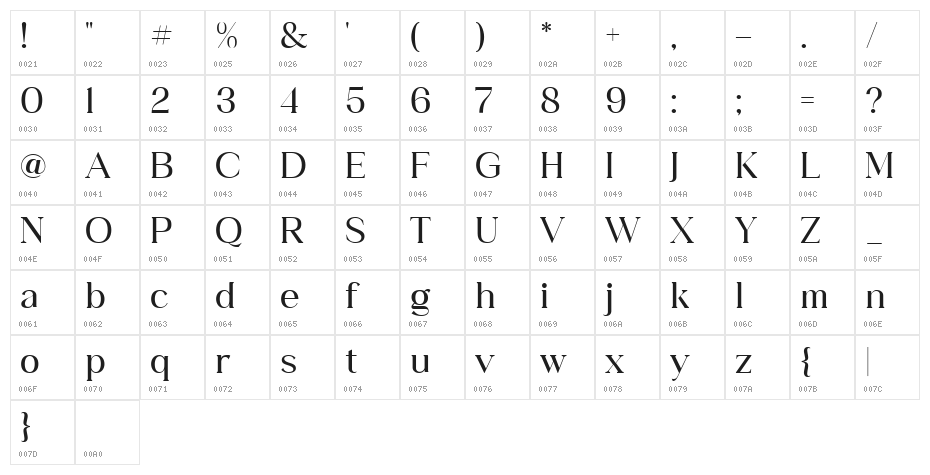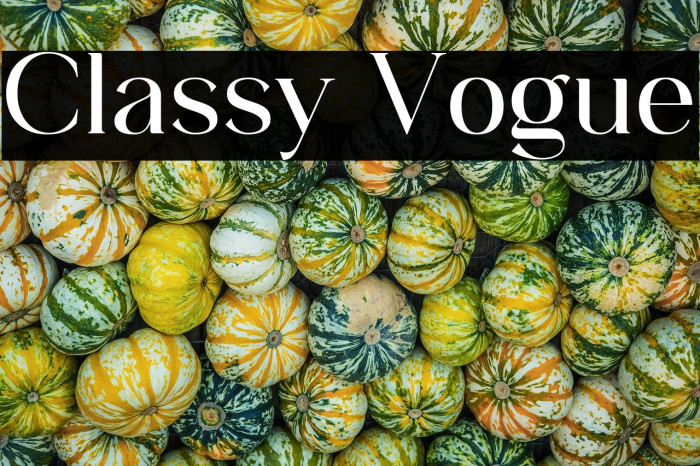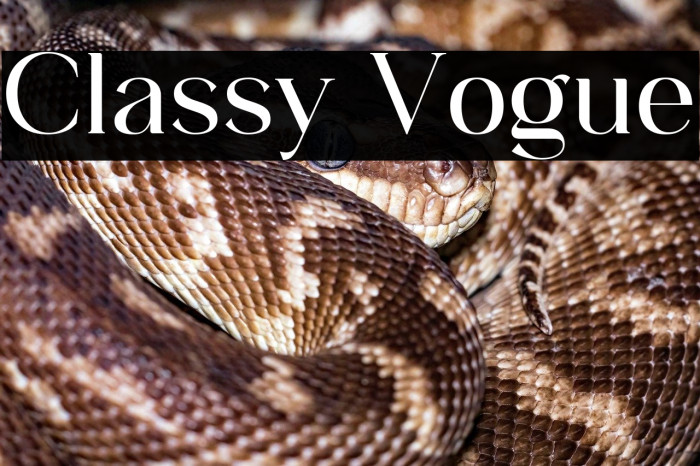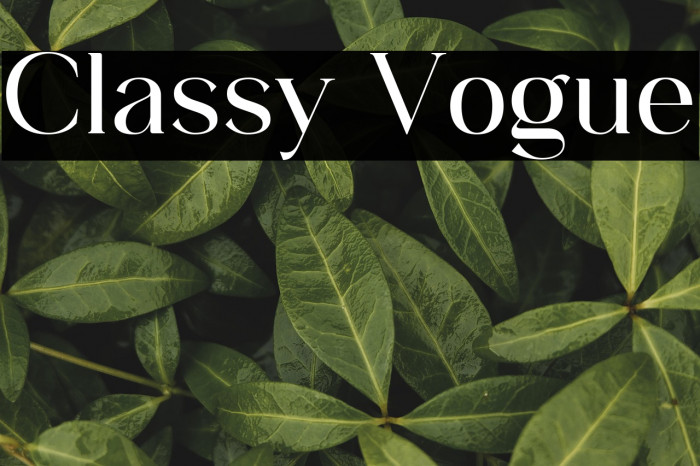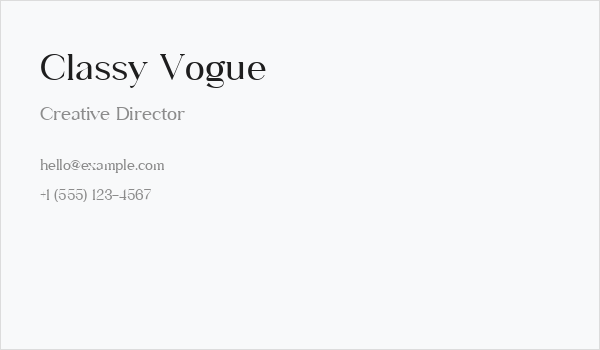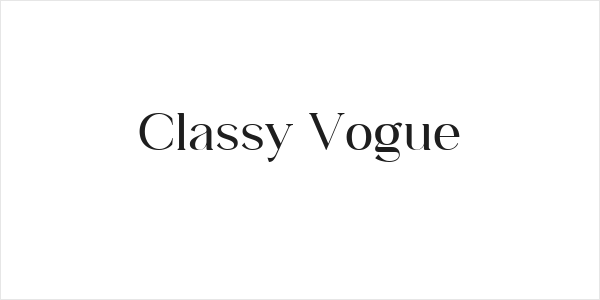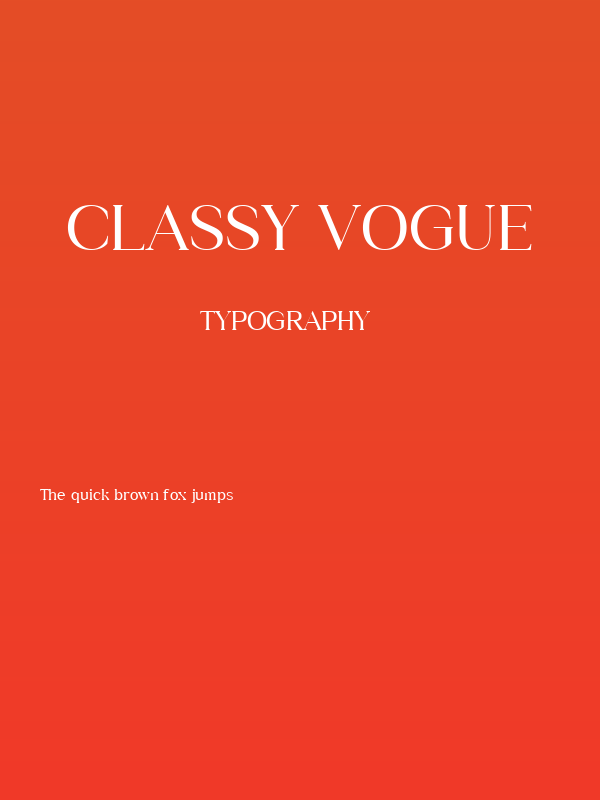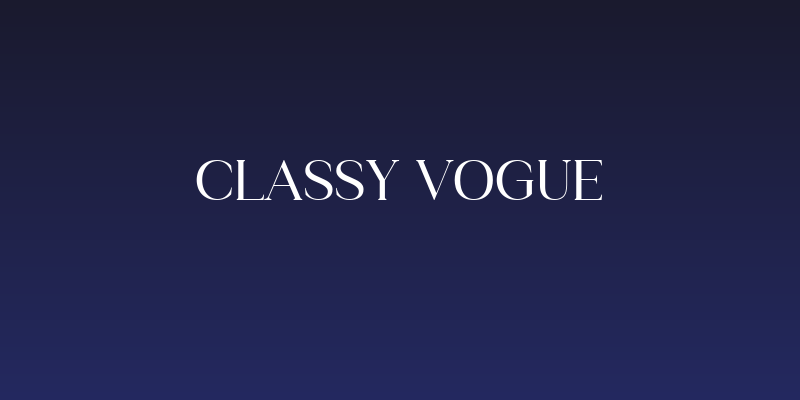
Classy Vogue Font
Classy Vogue Description
This font exudes elegance and sophistication with its high contrast between thick and thin strokes, making it ideal for upscale and fashionable designs. The serif style adds a classic touch, while the modern twist in its design ensures it remains contemporary. The uppercase letters are tall and commanding, while the lowercase letters maintain a graceful flow. The numerals are clear and distinct, and the special characters are stylishly integrated, enhancing the font's versatility. This font is perfect for projects that require a touch of luxury and refinement.
| Use Case | Headlines, Logos, Editorials |
| Proposed Projects | Ideal for fashion magazines, luxury branding, editorial layouts, and high-end product packaging. |